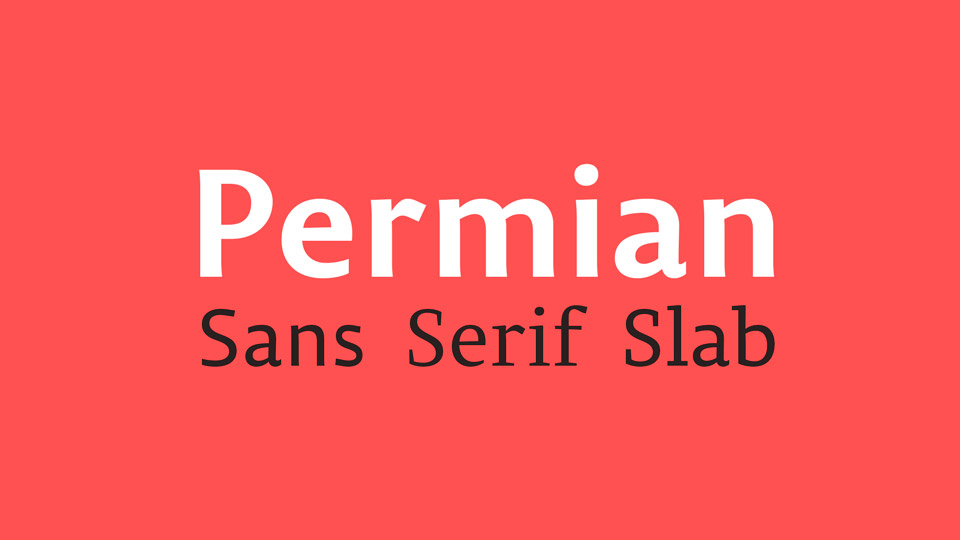
Download Permian typeface, an energetic, modern and universal font family for a wide range of design tasks. Permian composed of three different typefaces based on one graphic idea: Sans Serif and Slab.
Designer: Ilya Ruderman